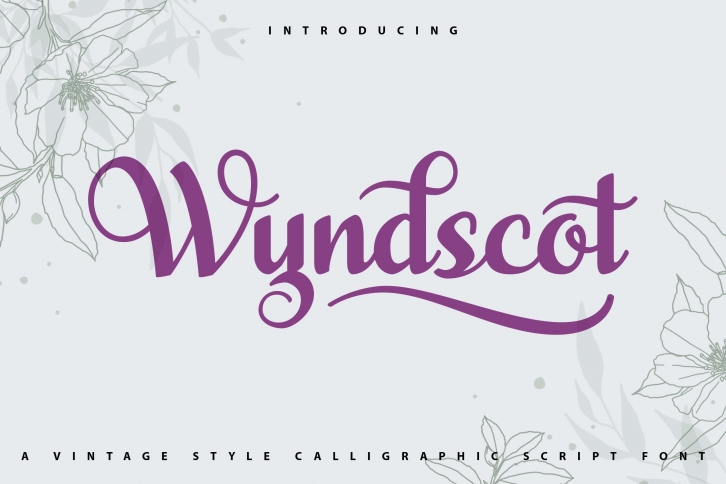
WyndScot is a dazzling script font. This font is neatly crafted and highly detailed. Whatever the topic, WyndScot will be a wonderful asset to your font library, as it has the potential to enhance any creation.